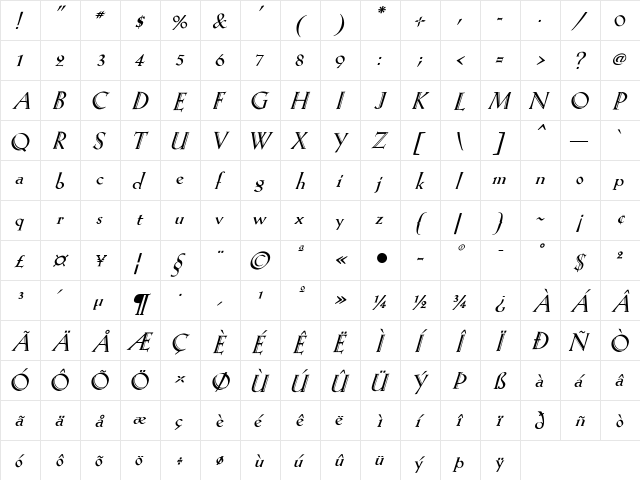
Eva Regular
Design Context for Eva Typeface
Eva is a composed and adaptable typeface that performs quietly and consistently across a wide range of design contexts.
Pro Tip: Pair Eva with a font of contrasting weight or personality to build a more expressive typographic hierarchy.